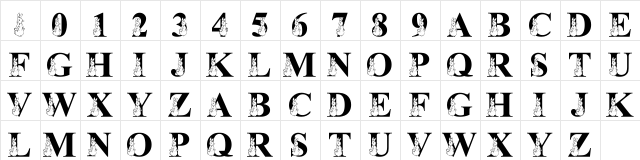
LMS My Favorite Rabbit Regular
Design Context for LMS My Favorite Rabbit Typeface
LMS My Favorite Rabbit is a composed and adaptable typeface that performs quietly and consistently across a wide range of design contexts.